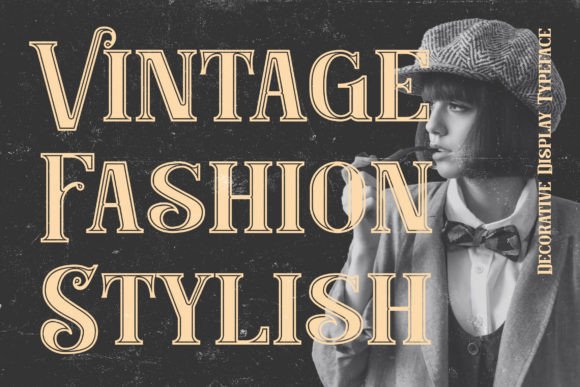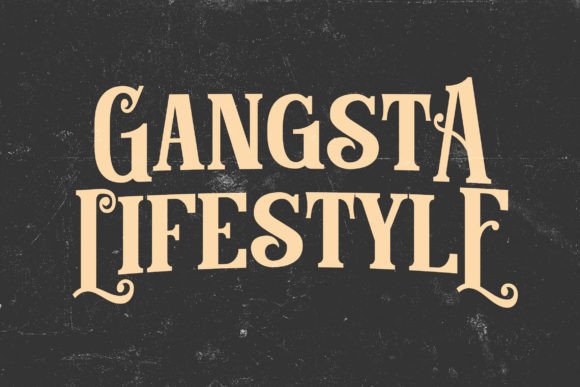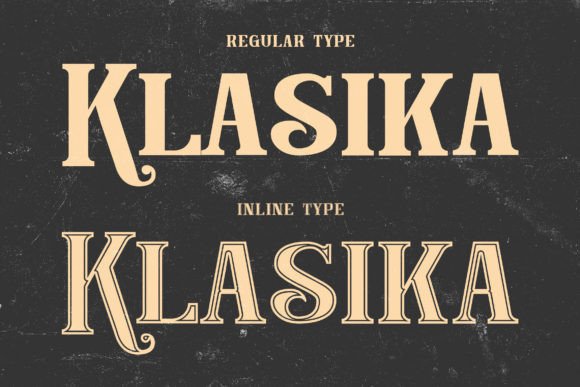
Klasika Font
Klasika is a bold and thick lettered blackletter font. Add it confidently to your projects, and you will love the results.This font is PUA encoded which means you can access all of the glyphs and swashes with ease!